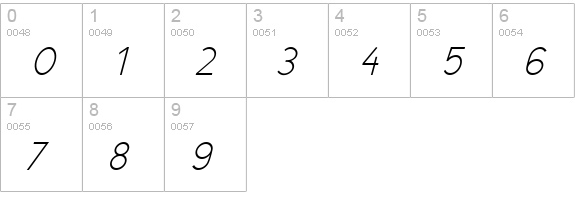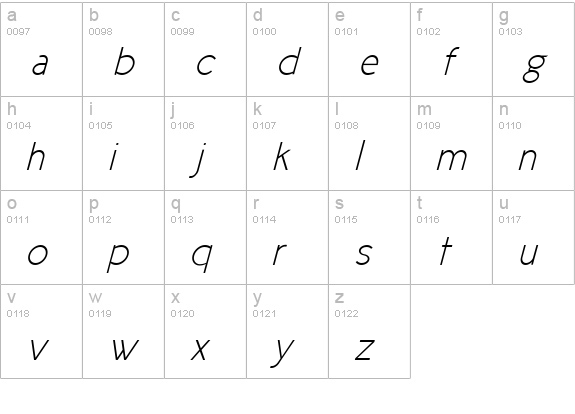
New Cicle Fina Italic Font Details
New Cicle Fina Italic is a distinctive, italic variant in the New typeface family \xE2\x80\x94 well suited to design and typography projects.
New Cicle Fina Italic is a stunning and elegant font that adds a touch of sophistication to any design project. With its delicate curves and graceful lines, this font exudes a sense of refinement and style. The italic style of New Cicle Fina gives text a unique and modern look, perfect for creating eye-catching headings, quotes, and invitations. What's even better is that New Cicle Fina Italic is available for free download at FontsMarket.com. Whether you're a designer looking to elevate your creations or a creative enthusiast searching for a new favorite font, New Cicle Fina Italic is a must-have addition to your collection. Download it today and unleash your creativity with this beautiful typeface.